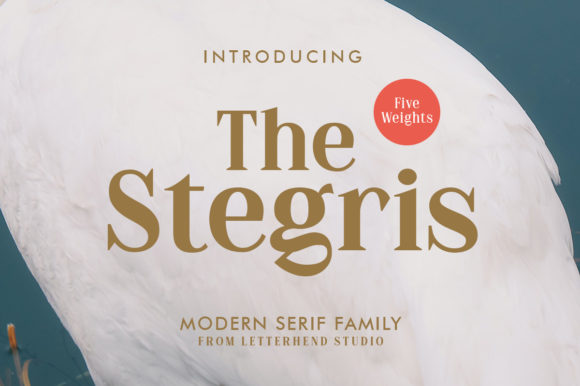
The Stegris Font: A Bold yet Elegant Serif Font for Stunning Designs
Are you looking for a font that can elevate your designs to the next level? Look no further than The Stegris font. This bold yet elegant serif font is incredibly versatile and can be used to create spectacular designs that will leave a lasting impression. In this article, we’ll take a closer look at The Stegris font, its features, and how you can use it to take your designs to new heights.
What is The Stegris Font?
The Stegris font is a serif font that combines boldness with elegance. Its unique design makes it perfect for creating stunning designs that require a touch of sophistication. The font is designed to be highly versatile, making it suitable for a wide range of design projects, from branding and advertising to packaging and digital media.
Key Features of The Stegris Font
The Stegris font comes with a range of features that make it an excellent choice for designers. Some of its key features include:
- Bold yet Elegant Design: The Stegris font has a bold design that is balanced by its elegant lines, making it perfect for creating designs that require a touch of sophistication.
- Serif Details: The font features beautiful serif details that add a touch of classic elegance to any design.
- Highly Versatile: The Stegris font is incredibly versatile and can be used for a wide range of design projects, from branding and advertising to packaging and digital media.
- Easy to Read: Despite its bold design, The Stegris font is easy to read, making it perfect for body text and headlines.
How to Use The Stegris Font
The Stegris font can be used in a variety of ways to create stunning designs. Here are a few ideas to get you started:
- Branding and Advertising: Use The Stegris font to create bold and eye-catching logos, billboards, and adverts that will grab the attention of your target audience.
- Packaging Design: The Stegris font is perfect for packaging design, particularly for luxury brands that require a touch of elegance and sophistication.
- Digital Media: Use The Stegris font to create stunning digital media, including social media graphics, website headers, and email newsletters.
- Print Media: The Stegris font is also perfect for print media, including brochures, flyers, and posters.
Benefits of Using The Stegris Font
There are many benefits to using The Stegris font in your designs. Some of the key benefits include:
- Unique Design: The Stegris font has a unique design that will help your designs stand out from the crowd.
- Highly Versatile: The font is incredibly versatile and can be used for a wide range of design projects.
- Easy to Read: The Stegris font is easy to read, making it perfect for body text and headlines.
- Time-Saving: The Stegris font can save you time and effort in your design projects, as it can be used to create stunning designs quickly and easily.
Tips for Using The Stegris Font
Here are a few tips for using The Stegris font in your designs:
- Use it Boldly: The Stegris font is designed to be used boldly, so don’t be afraid to experiment with different font sizes and styles.
- Pair it with Other Fonts: The Stegris font can be paired with other fonts to create stunning contrast and visual interest.
- Experiment with Colors: The Stegris font can be used with a range of colors, so experiment with different color schemes to find the one that works best for your design.
The Stegris font is a bold yet elegant serif font that is perfect for creating stunning designs. Its unique design, highly versatile style, and ease of use make it an excellent choice for designers. Whether you’re working on a branding project, packaging design, or digital media, The Stegris font is sure to impress. So why not give it a try and see the difference it can make in your designs?
- What is The Stegris font?: The Stegris font is a bold yet elegant serif font that is designed to be highly versatile and easy to use.
- What is The Stegris font used for?: The Stegris font can be used for a wide range of design projects, including branding and advertising, packaging design, digital media, and print media.
- Is The Stegris font easy to read?: Yes, The Stegris font is easy to read, making it perfect for body text and headlines.